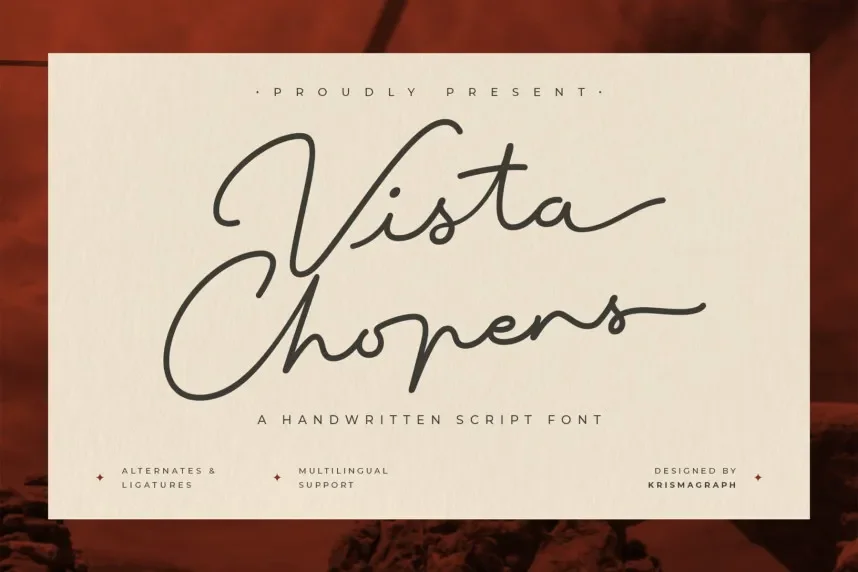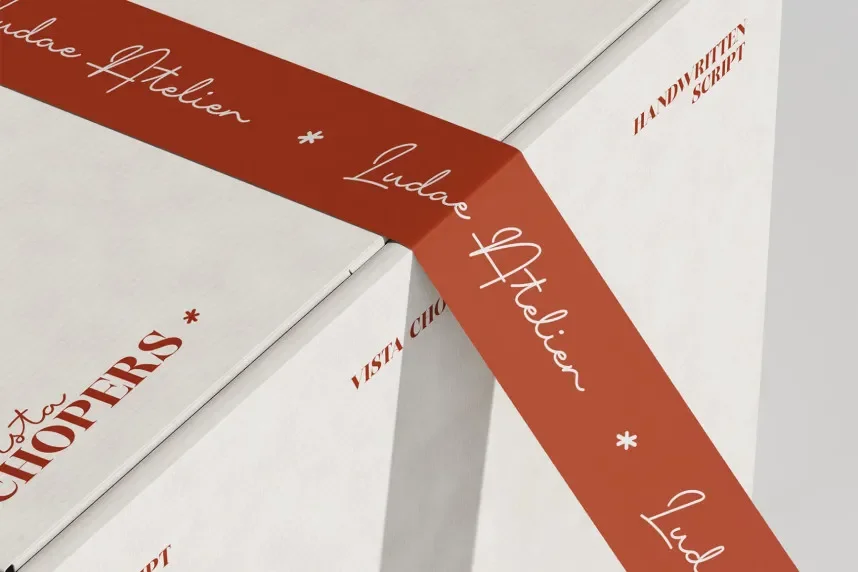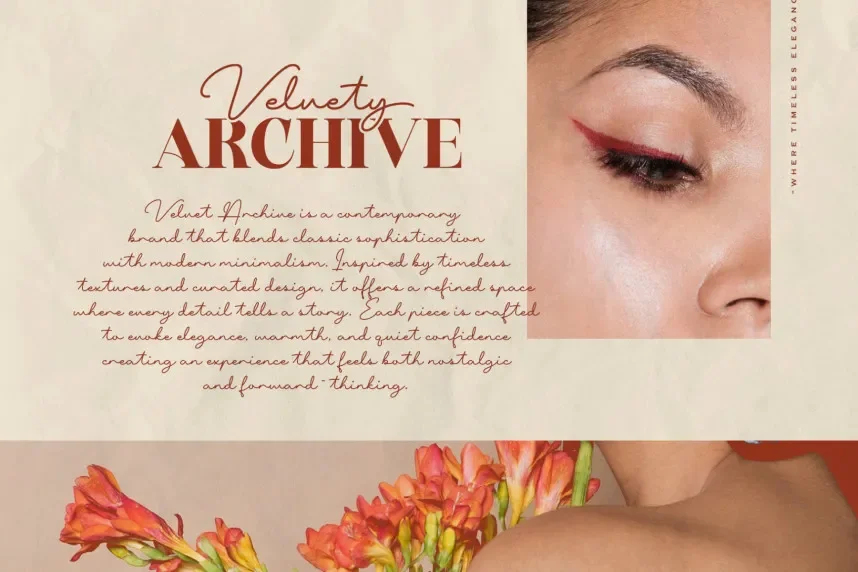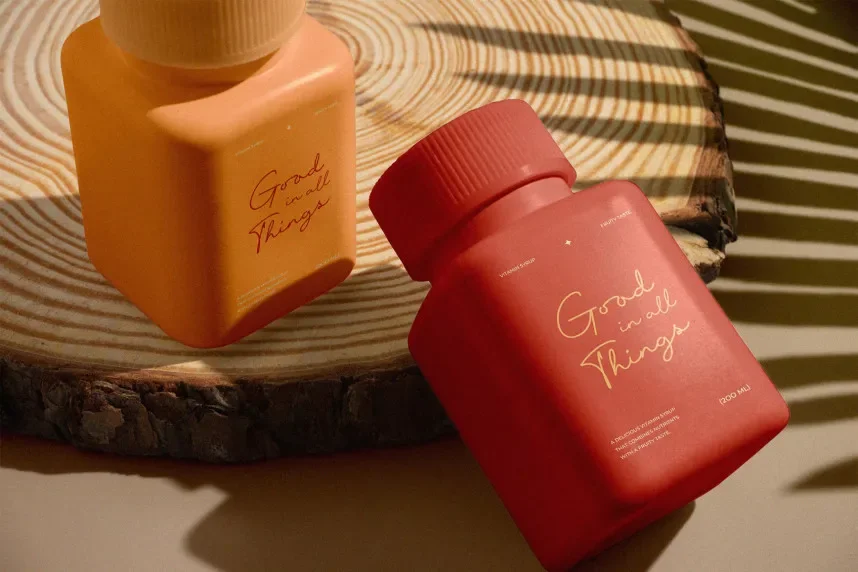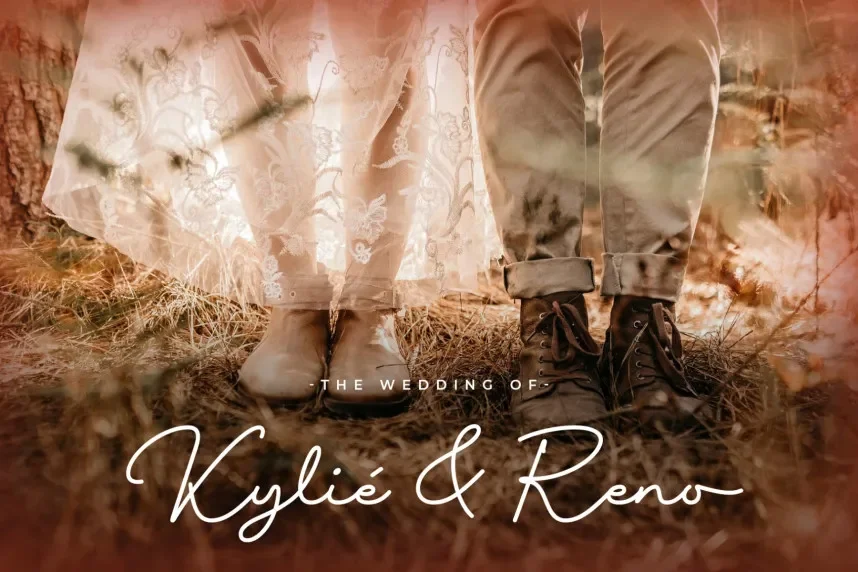
Vista Chopers Font is a display typeface with a unique, vintage-inspired design. The bold, rounded letterforms and playful strokes make it perfect for retro-themed designs, such as signage, logos, and creative branding projects.